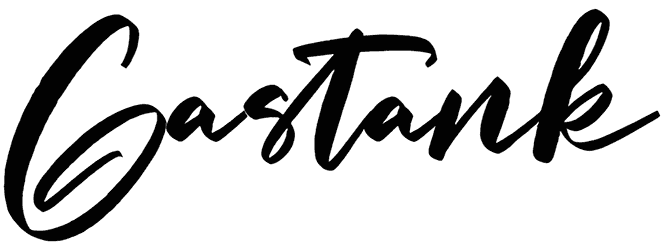
Gastank Font
A simple way to give your content an unparalleled personality is possible use a handwriting font. Taking Gastank as an opportunity would fit perfectly on wedding cards, romantic letters, coffee shop signs, and Valentine packaging due to its special cursive design.
Although this font doesn’t support numbers and punctuation marks, it leaves no stone unturned in highlighting your design.